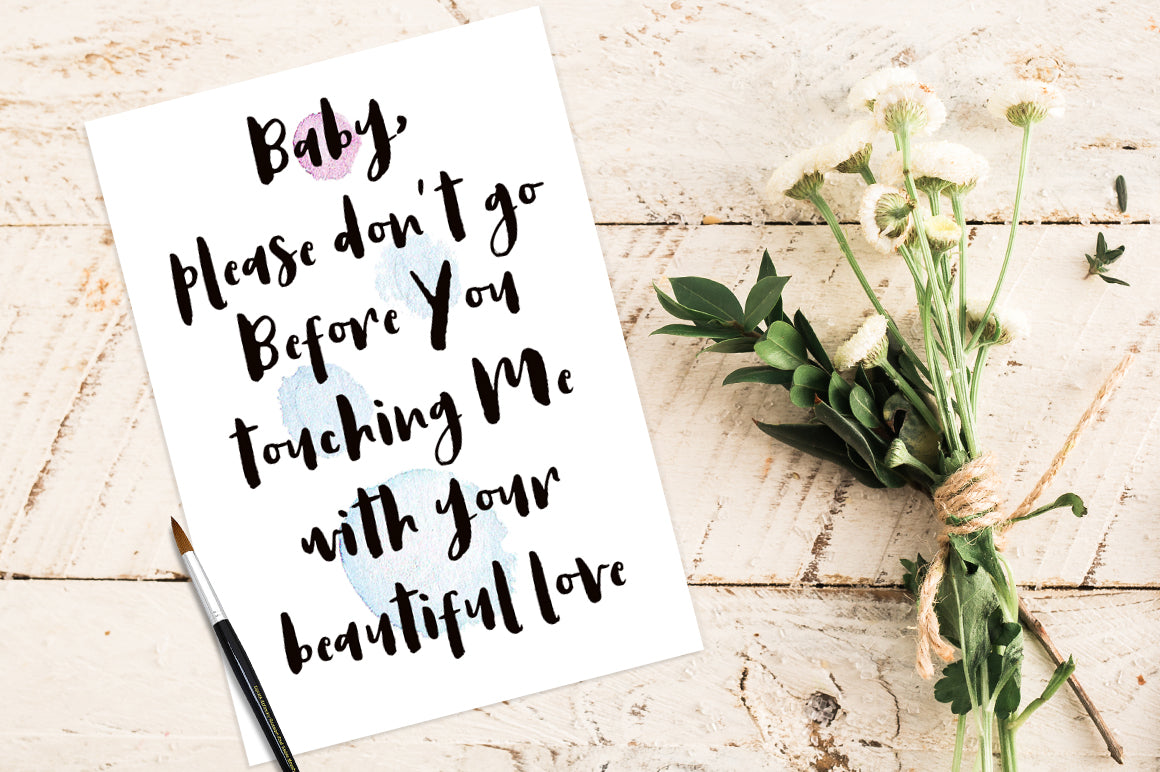
Free Atoucher Love Font
Download and enjoy this free atoucher love font. Cool typeface to showcase your designs in a modern way. Go give some love to Pixelify for creating this top-notch free typeface. Showcase your designs like a graphic design pro by adding a new touch with this fancy font.